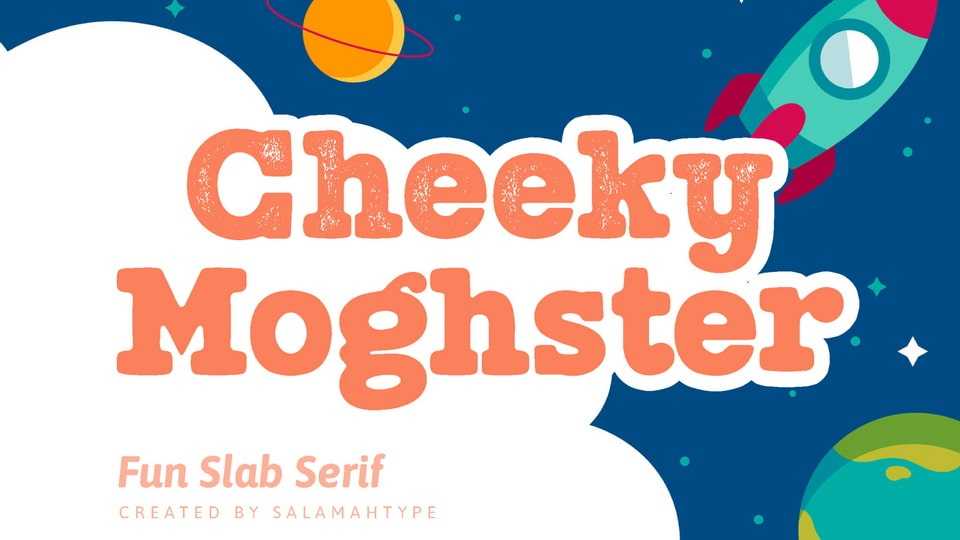
Download Cheeky Moghster font, a fun slab serif typeface mixed with vintage style. Cheeky Moghster are ready to be used to make your design projects more interesting.